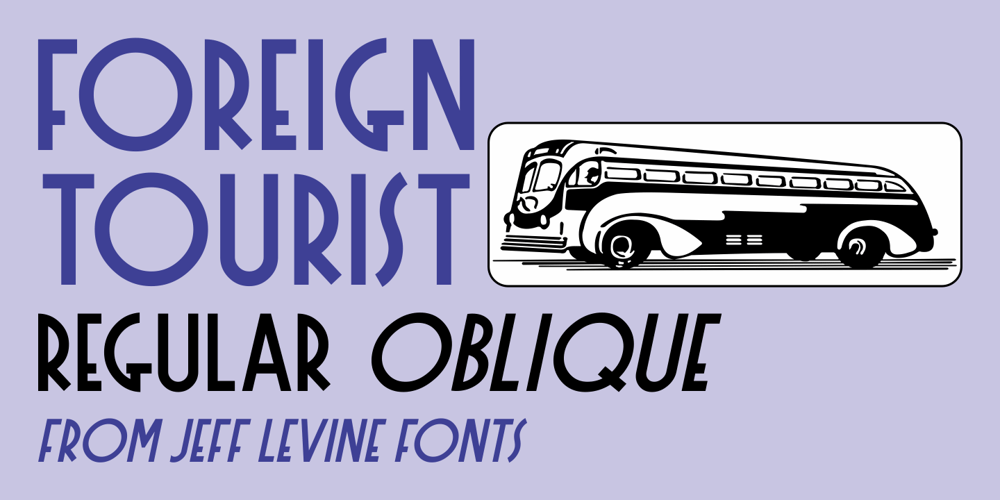
Foreign Tourist JNL Font Family was designed by Jeff Levine and published by Jeff Levine. Foreign Tourist JNL contains 2 styles and family package options. A 1929 German travel poster had the caption “Wer schlafwagen reist spart zdeit und geld” (“Whoever travels in a sleeping car saves time and money”) hand lettered in an Art Deco sans serif style.This is now available as Foreign Tourist JNL, in both regular and oblique versions.